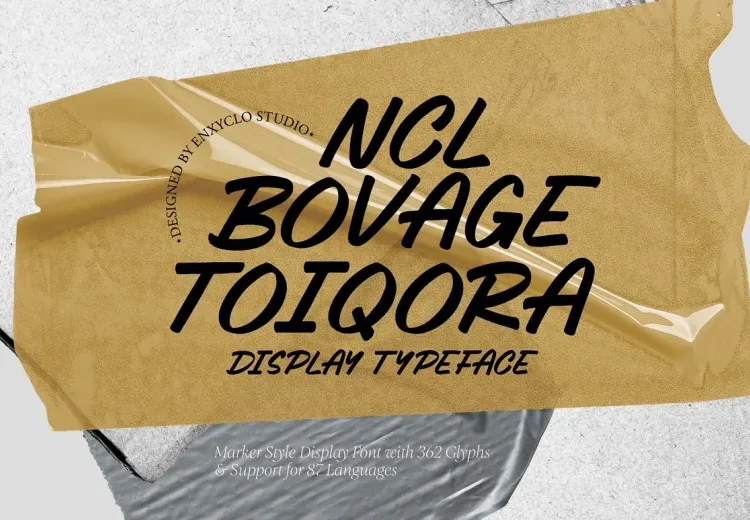
NCL Bovage Toiqora Font
NCL Bovage Toiqora is a beautifully crafted marker-style display font that exudes elegance and creativity. With its versatile design, it enhances the visual appeal of any project, making it ideal for a variety of design applications.
Key Features:
• Handcrafted Style: Every letter in NCL Bovage Toiqora has been meticulously designed, bringing a personal and artistic touch to your work.
• Optimized for Large Sizes: This font truly shines in larger formats, making it perfect for standout titles, posters, and billboards.
• Versatile Appeal: Maintains readability and charm even at smaller sizes, ensuring consistent elegance across different media.
Ideal Applications:
• Wedding and Event Designs: Perfect for invitations, signage, and decorations, lending sophistication to special occasions.
• Editorial and Print Layouts: Suitable for magazines, headlines, and titles where a distinctive and bold typeface is needed.
• Digital Branding and Logos: Makes for memorable logos and website headers, helping brands stand out with a unique visual style.
• Posters and Advertising: An excellent choice for poster design and billboards, drawing attention with its beautiful handcrafted detail.
Why NCL Bovage Toiqora Stands Out:
• Elegance with Artistic Flair: Blends the casual feel of marker strokes with the refinement of a display font, providing a sophisticated yet approachable aesthetic.
• Highly Distinctive Design: Adds a unique, creative touch to projects, ensuring your work leaves a lasting impression.